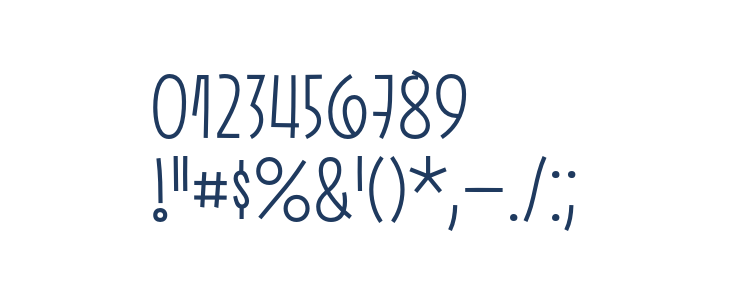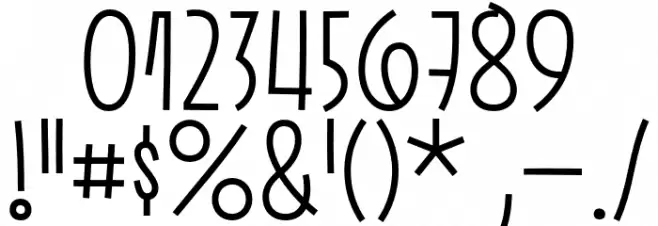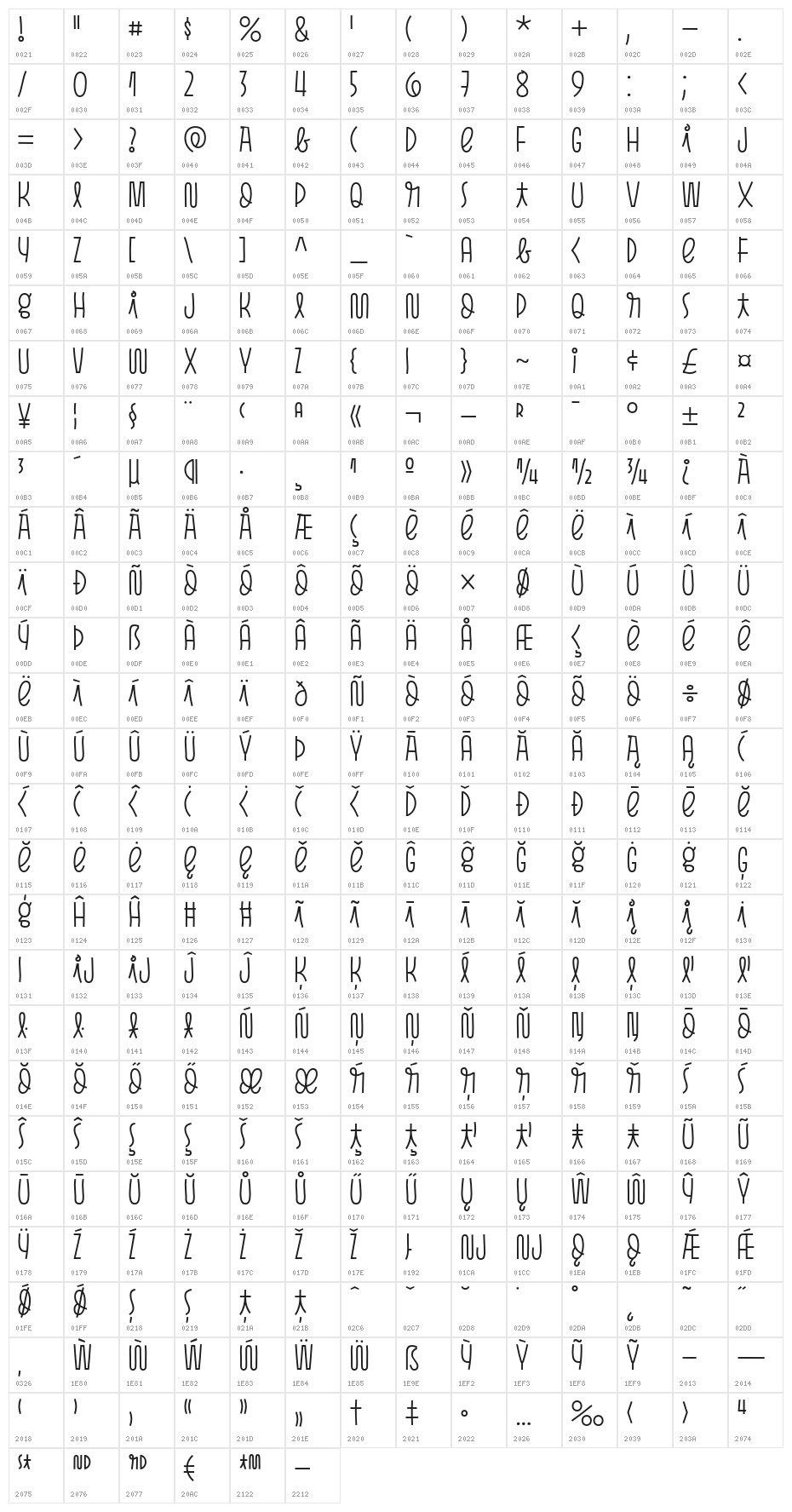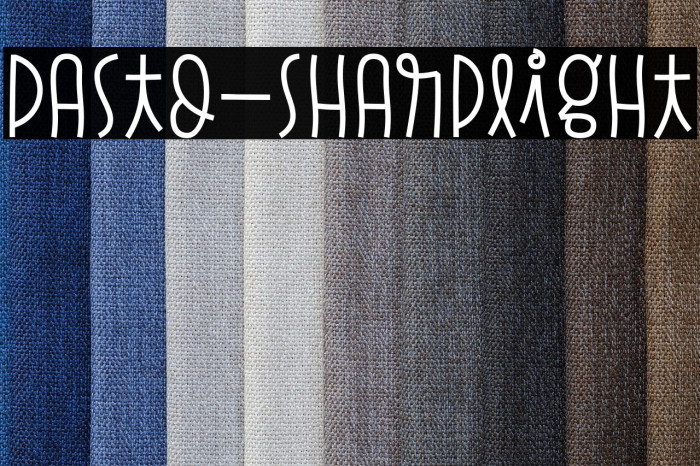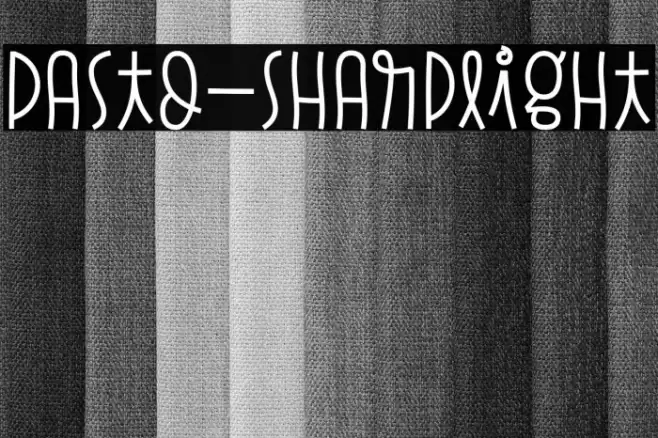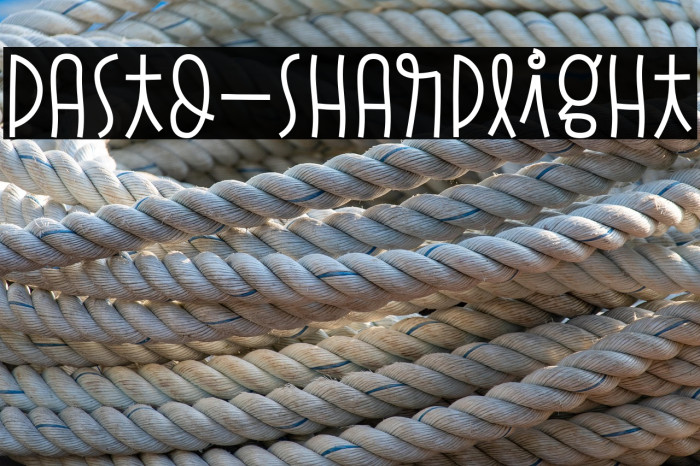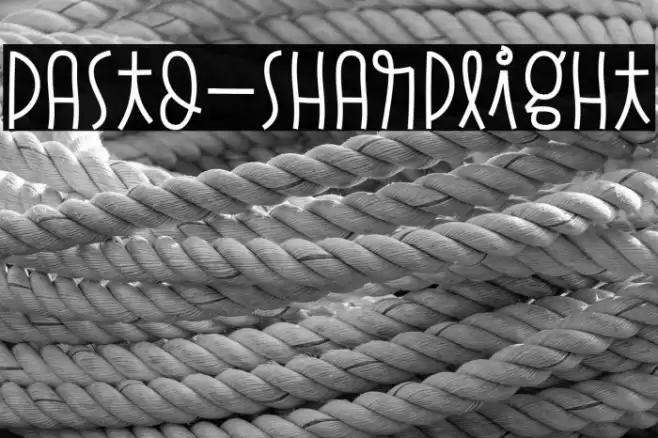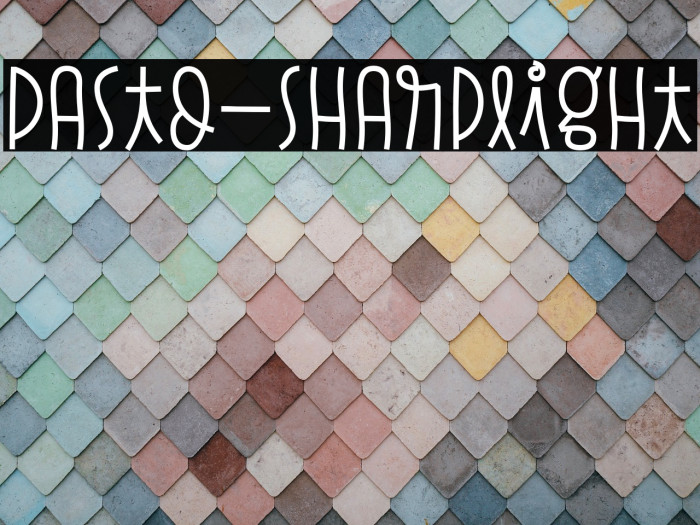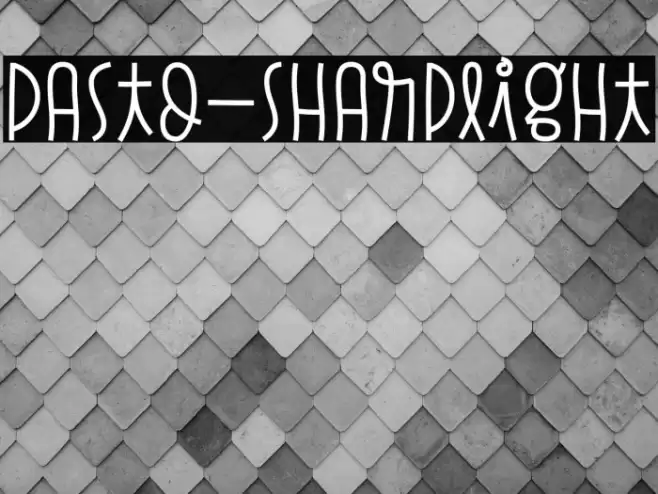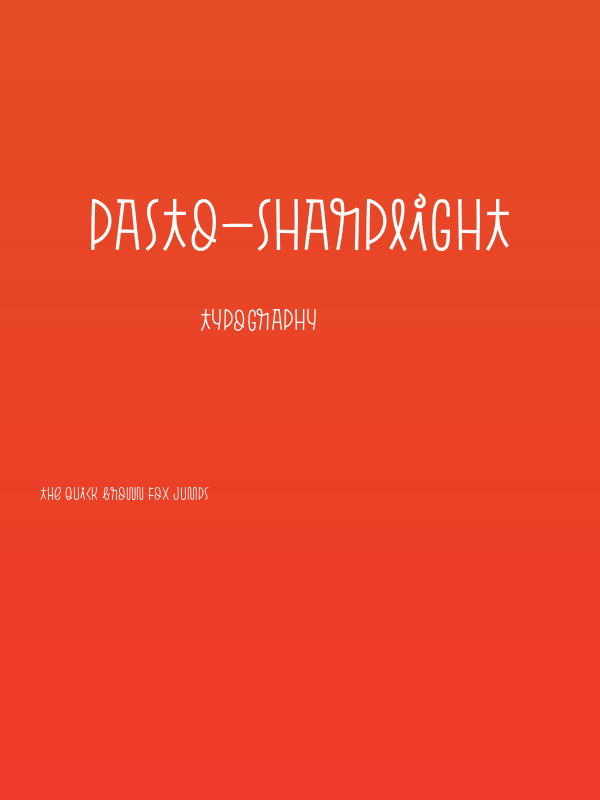
Pasto-SharpLight Font
Pasto-SharpLight Description
This font features a unique and playful design with a modern twist. The characters are elongated and have a distinct geometric style, with some letters incorporating unexpected curves and angles. The uppercase and lowercase letters maintain a consistent height, giving the font a uniform appearance. The numerals and special characters follow the same design principles, ensuring cohesion across all elements. This font's quirky and artistic flair makes it stand out, while its clean lines and structured form provide readability.
| Proposed Projects | Ideal for creative projects such as posters, branding, and packaging design where a distinctive and artistic touch is desired. |